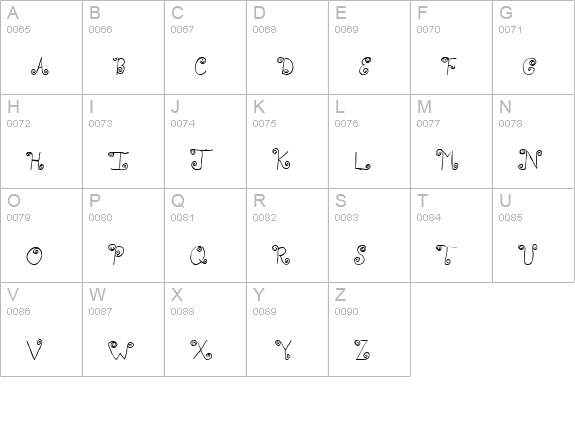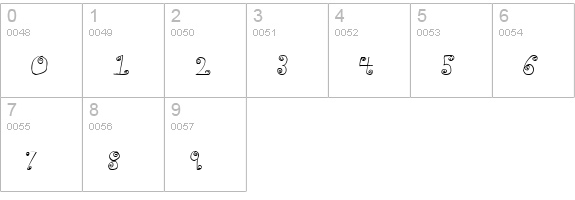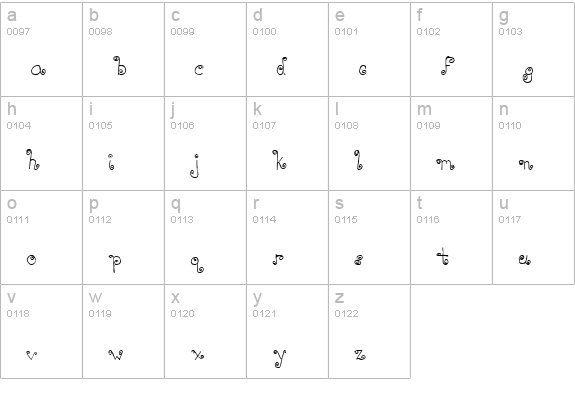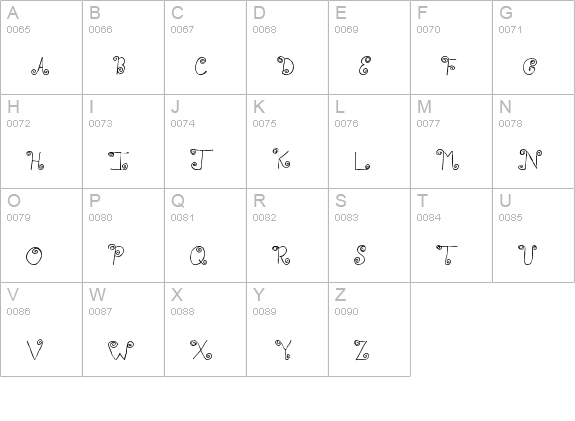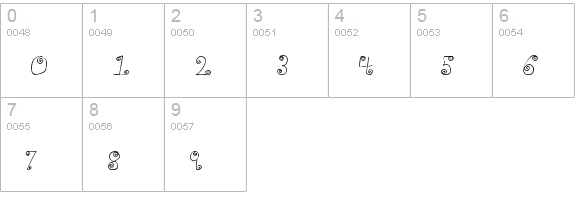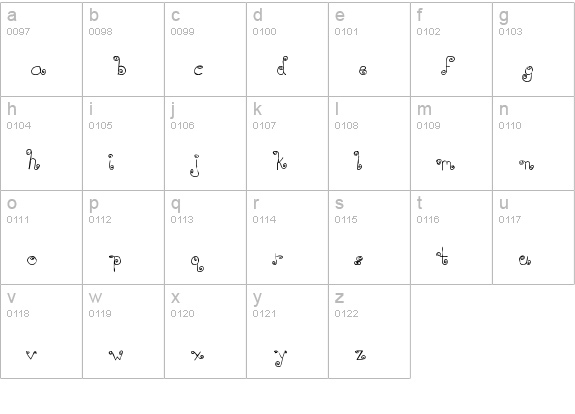
TWistED Font Details
Introducing TWistED font, a visually captivating typeface that will add a unique and edgy twist to your designs. With its unconventional and twisted letterforms, this font is perfect for grabbing attention and making a bold statement. TWistED font is not only visually striking, but it also offers a versatile range of weights and styles, allowing you to create dynamic compositions and explore endless design possibilities. Whether you're working on a poster, logo, branding, or any other creative project, this font is sure to make a lasting impression. What's more, TWistED font is freely available to download at FontsMarket.com. This means that you can easily access and use this font without any restrictions or limitations. Whether you're a professional designer or a creative hobbyist, the accessibility of this font allows you to bring your ideas to life without breaking the bank. Experience the power of TWistED font and unleash your creativity with its distinctive and captivating style. Download it for free today at FontsMarket.com and let your designs stand out from the crowd.